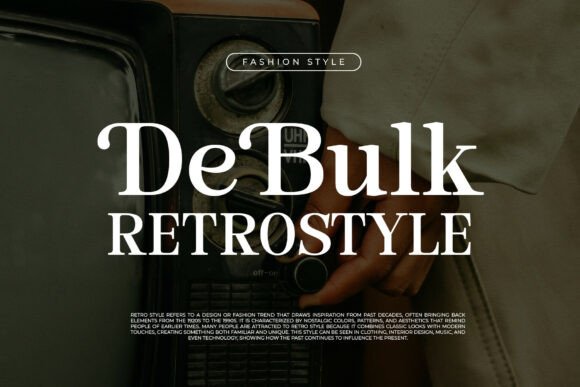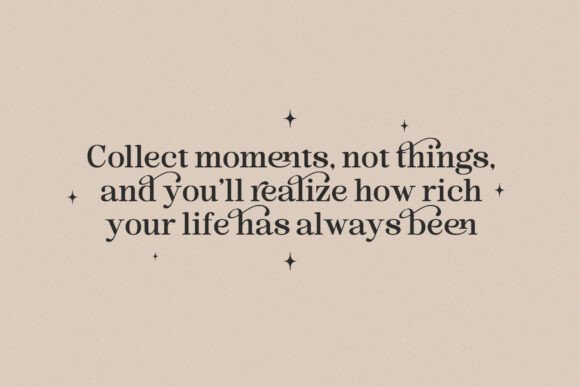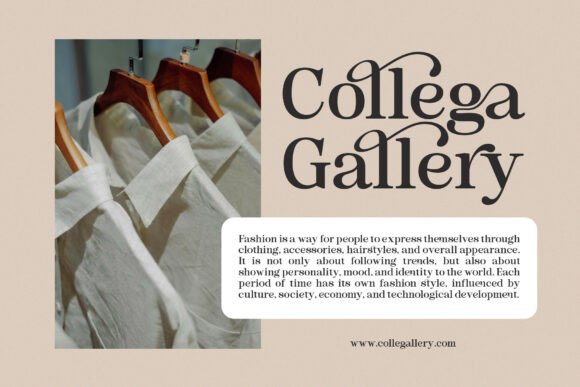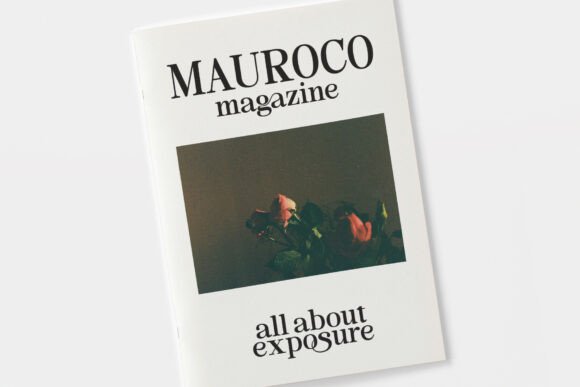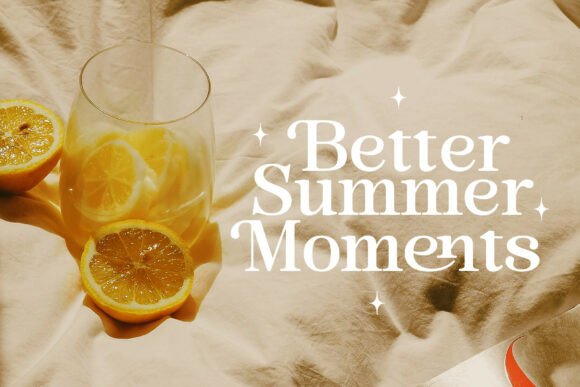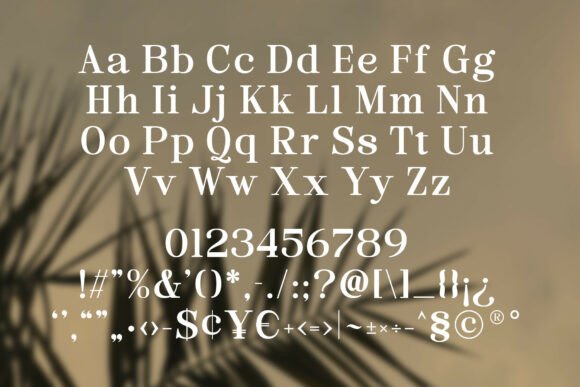
Introduction to Higher Regular Font
Imagine you’re working on a high-end creative project, and you need to make a statement with your typography. You’re searching for a font that exudes elegance, sophistication, and a touch of modernity. You want a font that will elevate your design to the next level, making it stand out in a crowded market.
That’s where Higher Regular Font comes in – a game-changing serif display font designed to produce striking visuals that leave a lasting impression. With its high-contrast strokes, razor-sharp serifs, and polished letterforms, this font is the perfect design resource for creating show-stopping typography that shines on both print and digital platforms.
Whether you’re working on a magazine spread, iconic logo, or classy packaging, Higher Regular Font is the perfect choice for designers who demand high-quality typography that sets their work apart.
Key Features of Higher Regular Font
- High-quality font design, perfect for creative projects and design resources.
- Supports a wide range of languages, making it a versatile design resource.
- Transparent background, allowing for easy customization and layering in design projects.
- Higher Regular Font is a free, high-quality design resource that can be used in a variety of creative projects, from graphic design to digital art.
Honest Review: Higher Regular Font
I recently had the chance to work with the Higher Regular Font for a creative project and I must say, it was a great experience. This font is a high-quality design resource that can elevate any design. One of the things I loved about it was its transparent background, which made it easy to layer over different images and designs.
Here are some things that work well with the Higher Regular Font:
- ✨ High-quality design: The font is crisp and clean, making it perfect for any design project.
- ✨ Versatile: It can be used for a variety of projects, from print to digital designs.
- ⚠️ Limited font styles: The font only comes in a few styles, which may limit its use for more complex designs.
- ⚠️ Not suitable for all backgrounds: The transparent background can sometimes make the text hard to read against certain backgrounds.
Overall, I was impressed with the Higher Regular Font and would definitely recommend it for any design project. Its high-quality design and free download make it a great resource for designers, and with a little creativity, it can be used to create some amazing designs.
Tips for Getting the Most Out of Higher Regular Font
For the best results, use Higher Regular Font in conjunction with other high-quality design resources. Experiment with different font sizes and styles to create a visually appealing design. Consider using a transparent background to make your design stand out. With a little creativity, Higher Regular Font can be a valuable addition to your design toolkit.
Higher Regular Font is perfect for a variety of design projects, including presentations, social media graphics, brochures, and more. Its high level of detail and transparency make it ideal for designers working on complex projects. With Higher Regular Font, you can create professional-looking designs that are sure to impress.